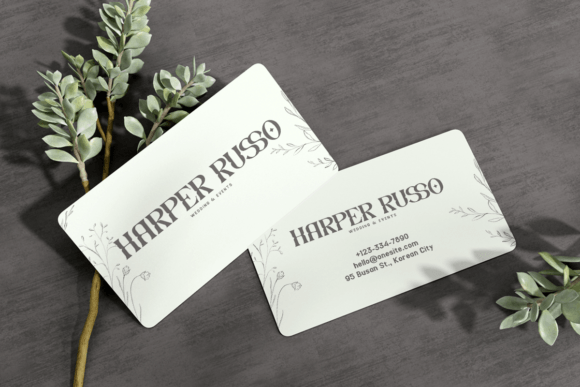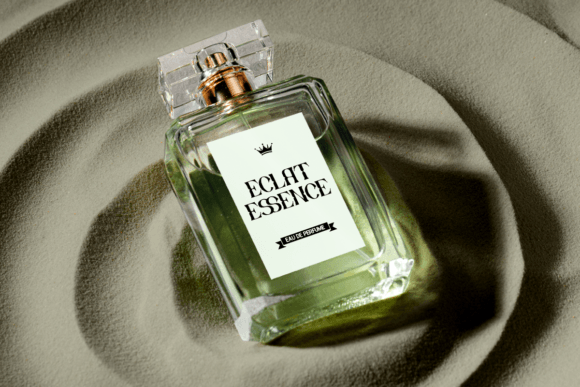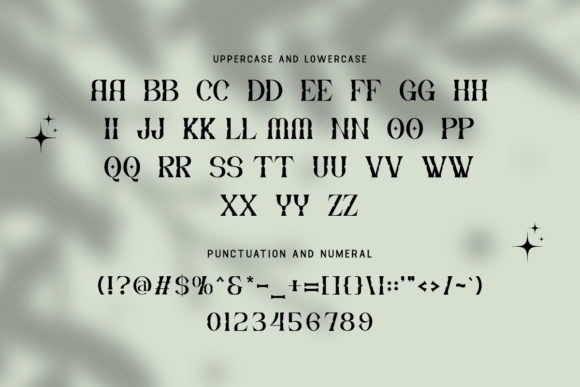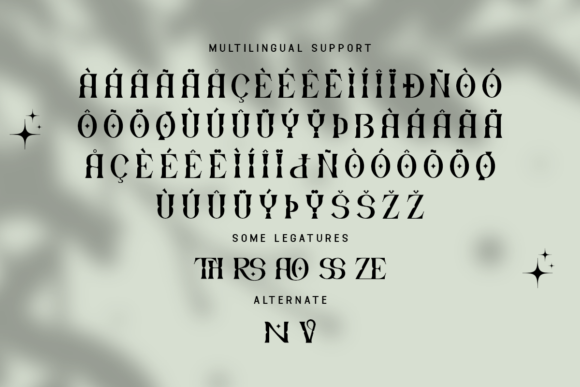
An Honest Review of Drivzen Serif Font
- ✅ Clean Lines and Sharp Details: Drivzen’s sleek design makes it perfect for high-impact branding, elegant editorial layouts, and stylish marketing materials.
- ✅ Excellent Readability: The font is easy on the eyes, making it suitable for both digital and print projects.
- ✅ PUA Encoded: This means I can access all the cute glyphs and swashes with ease, giving my designs an extra touch of personality.
- ✅ Polished Appearance: Drivzen adds a touch of class and modernity to any design, making it perfect for luxurious logos, professional business cards, and refined websites.
While Drivzen Serif Font is an excellent choice, there are a few things to keep in mind: ⚠️
- ⚠️ Glyph Overload: With so many glyphs and swashes available, it can be overwhelming to navigate. Take some time to explore the font and get familiar with its features.
- ⚠️ Not Suitable for Body Text: Drivzen is best used for headlines, titles, and short paragraphs. For longer texts, consider a more traditional serif font.
The Backstory of Drivzen Serif Font
The Drivzen Serif Font was designed with the modern designer in mind. Its creator aimed to craft a font that would blend classic serif elements with a modern edge. The result is a sophisticated typeface that’s perfect for luxury brands, editorial design, and stylish marketing materials.
| Font Name | Drivzen Font |
| Author | fontkong |
Q: Is Drivzen suitable for body text?
A: While Drivzen is an excellent font, it’s best used for headlines, titles, and short paragraphs. For longer texts, consider a more traditional serif font.